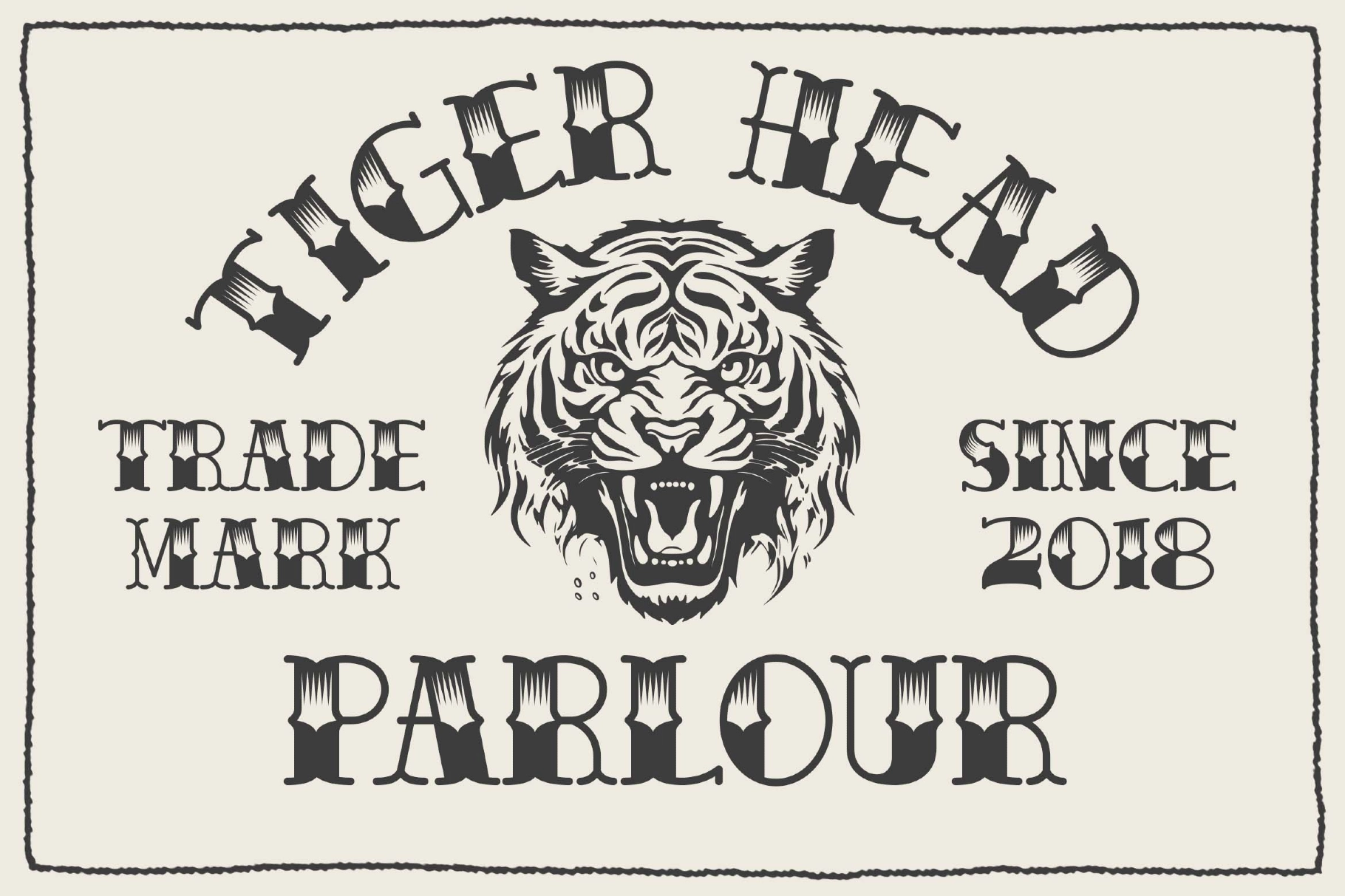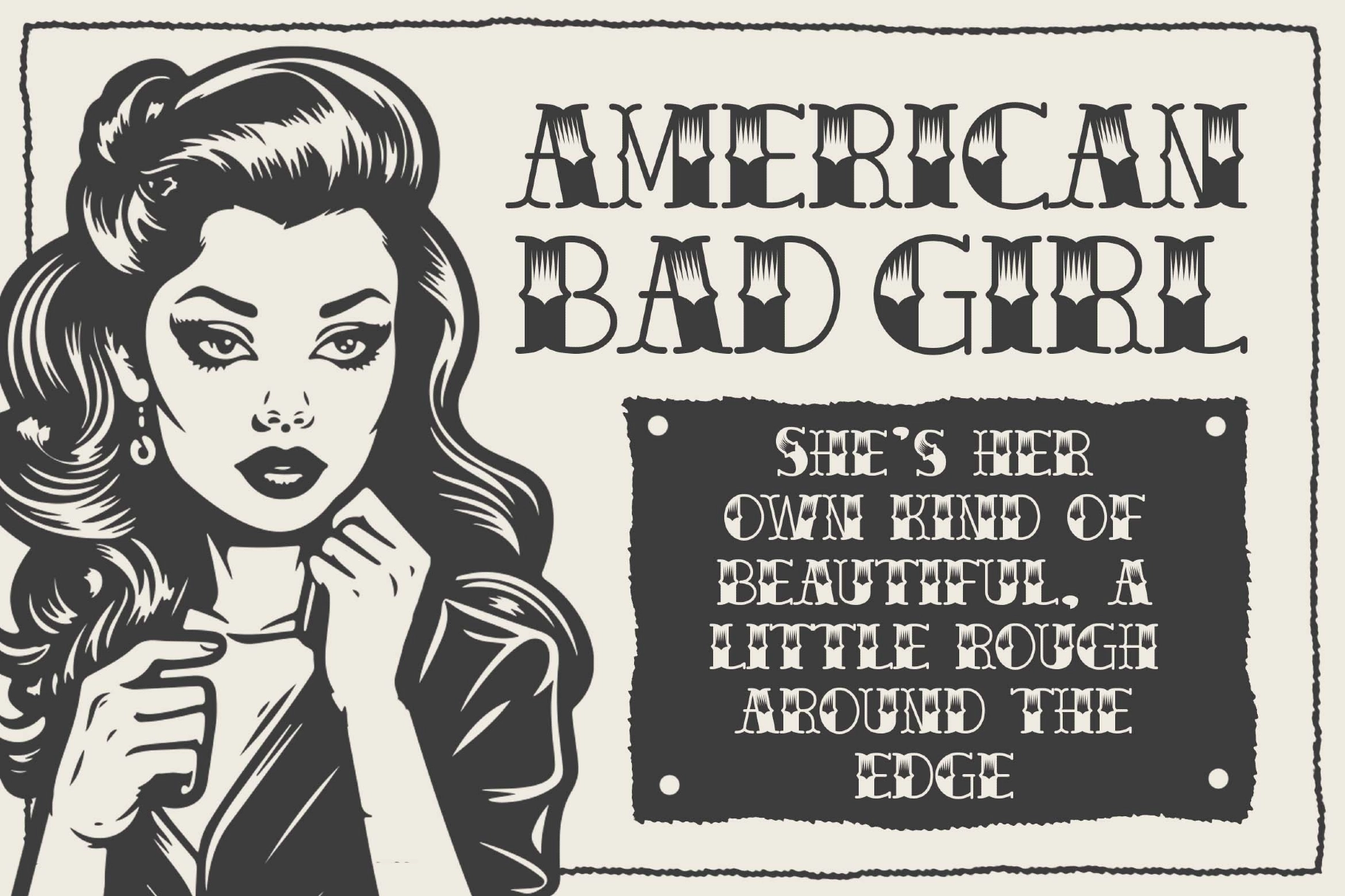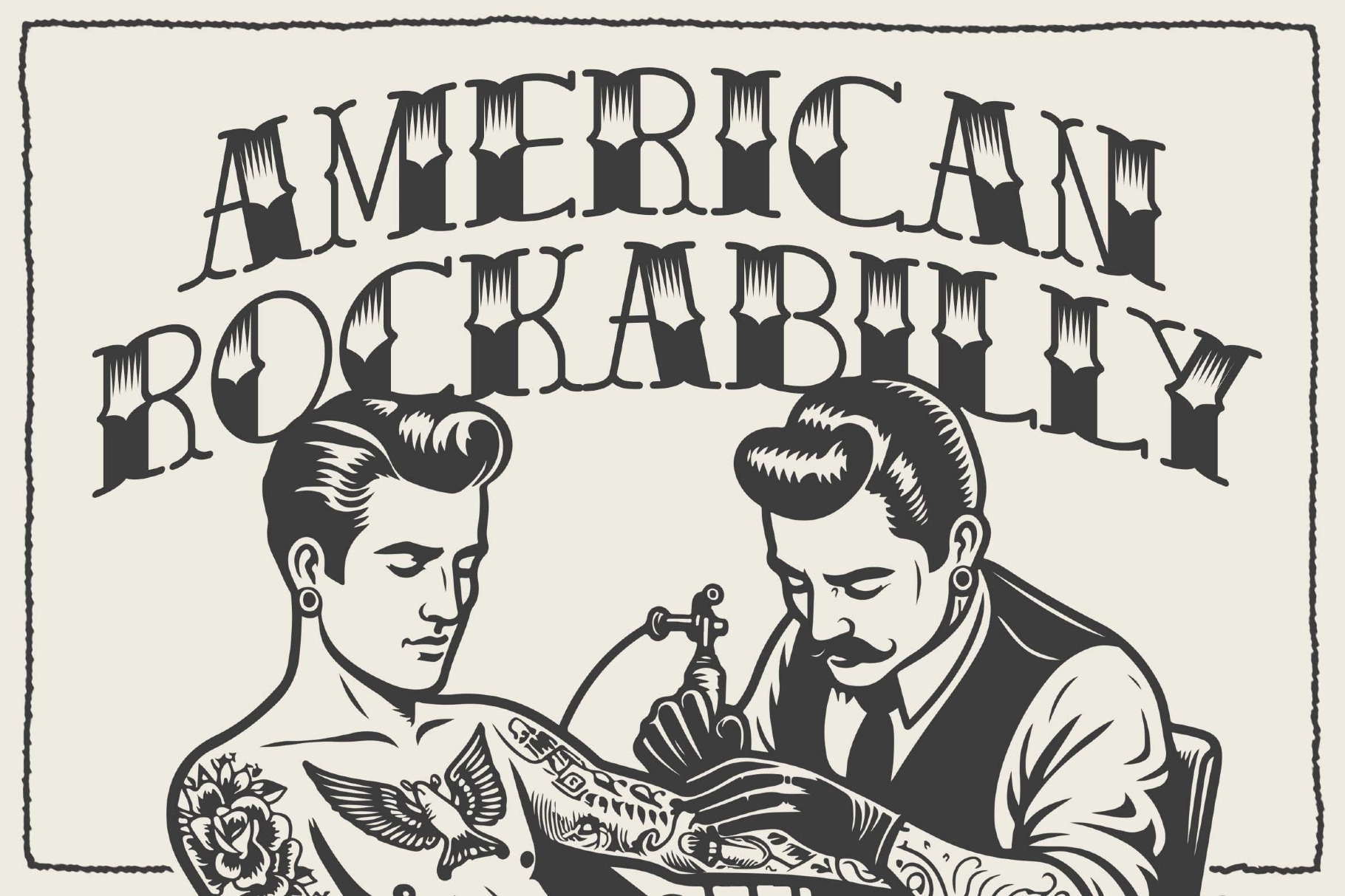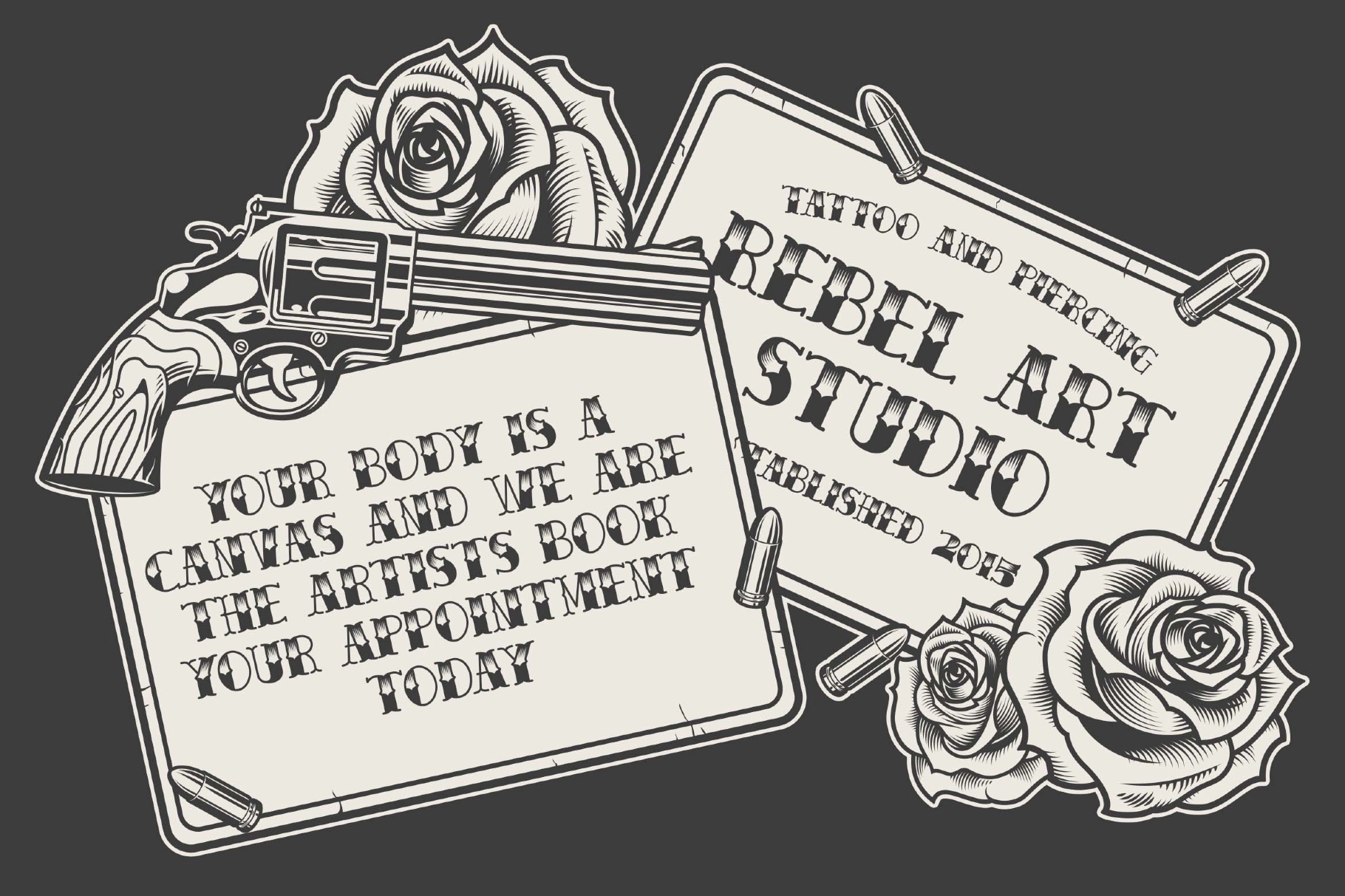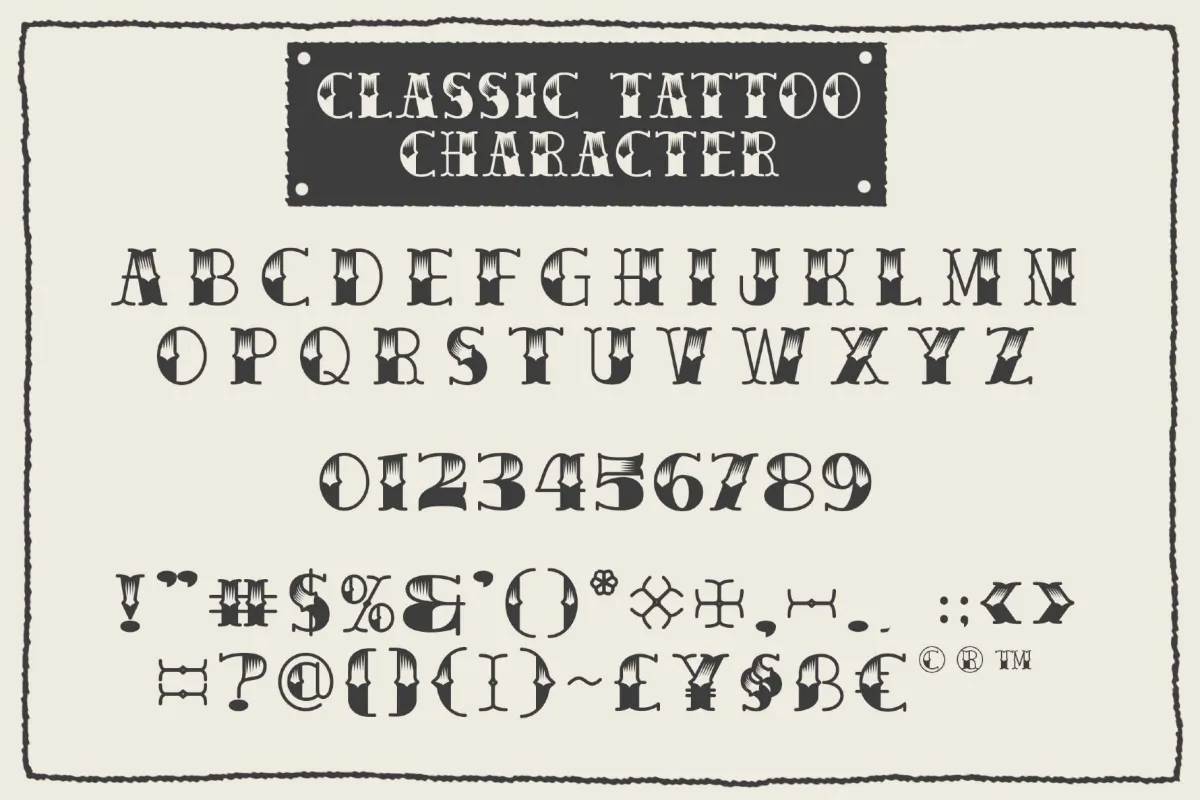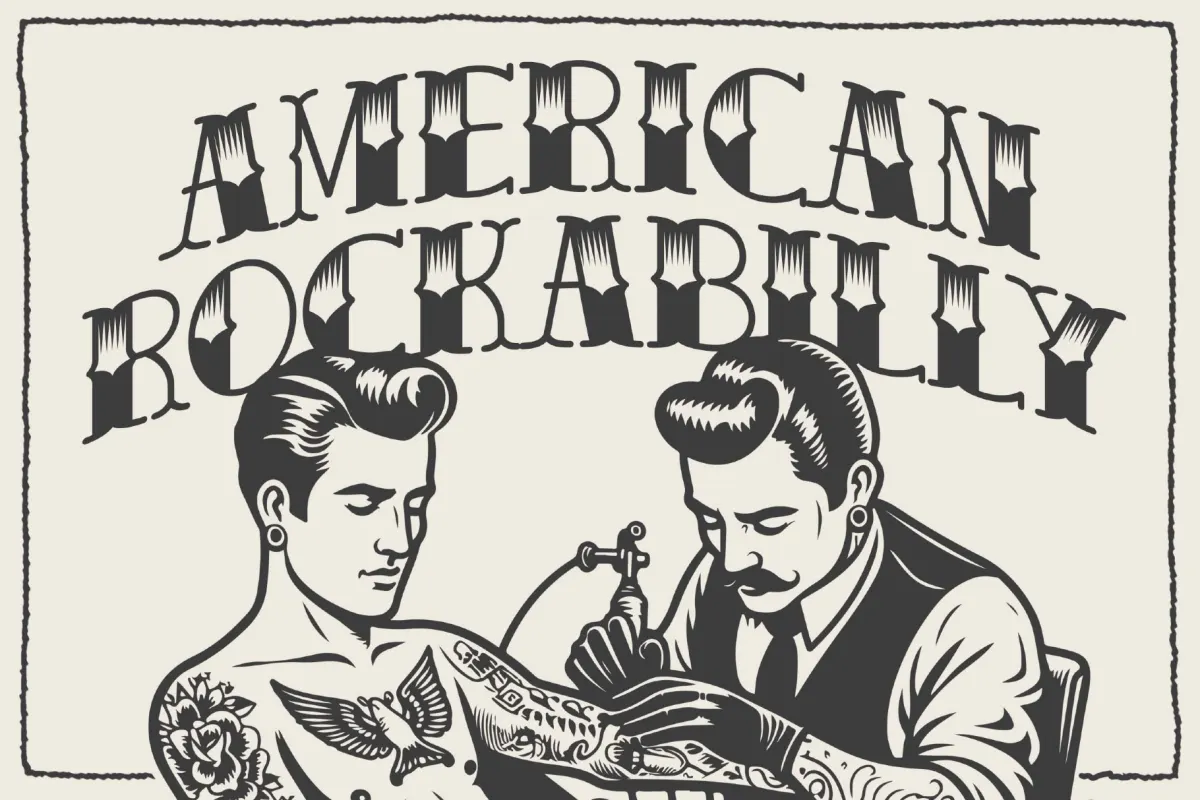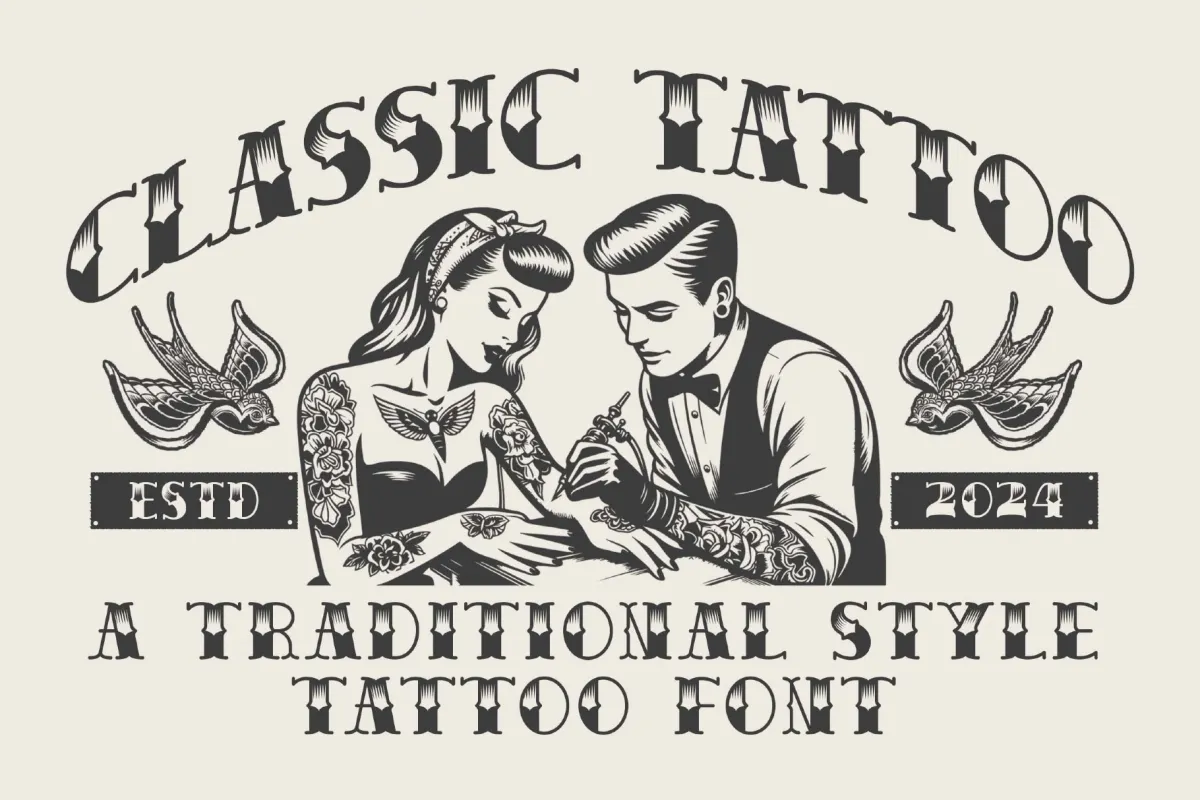
Classic Tattoo Font
Classic Tattoo Font is inspired by timeless old-school ink lettering and authentic tattoo culture. Designed with bold strokes, sharp curves, and vintage attitude, this typeface brings strong personality and heritage character to any creative project.
Perfect for logotypes, merchandise, posters, branding, barbershop visuals, motorcycle themes, apparel graphics, packaging, and promotional materials, Classic Tattoo delivers that unmistakable traditional tattoo aesthetic. Each letter is carefully crafted to reflect classic hand-inked typography while remaining clean and highly readable.
The font includes a complete set of uppercase and lowercase letters, numerals, and punctuation—giving you full flexibility for bold display compositions.
- Traditional Tattoo Style
- Numerals & Punctuation
- Bold Display Letterforms